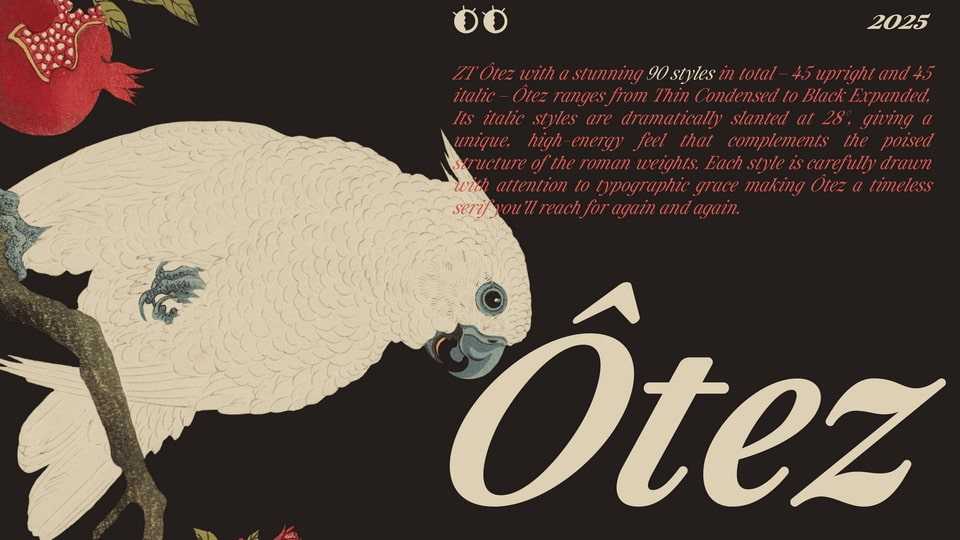
Download ZT Otez font, a refined serif typeface crafted with elegance, precision, and timeless character, inspired by classic editorial lettering and 20th-century French book typography
Designer: Zelow Type